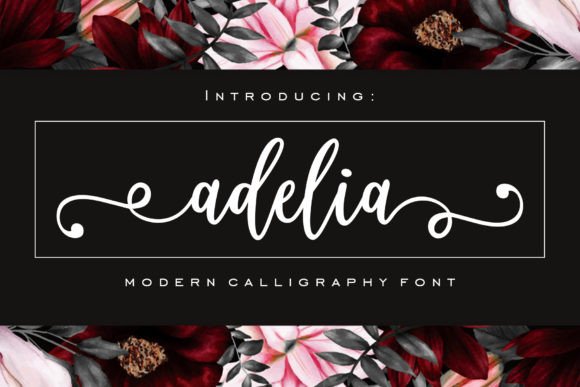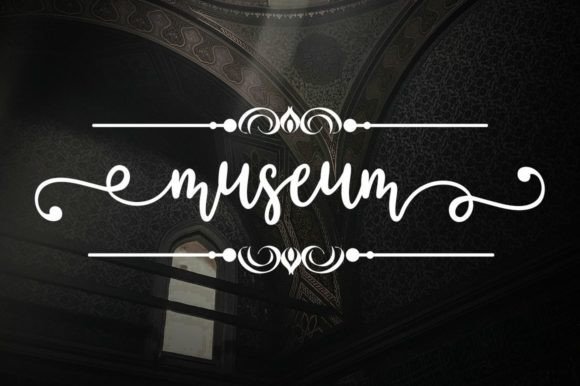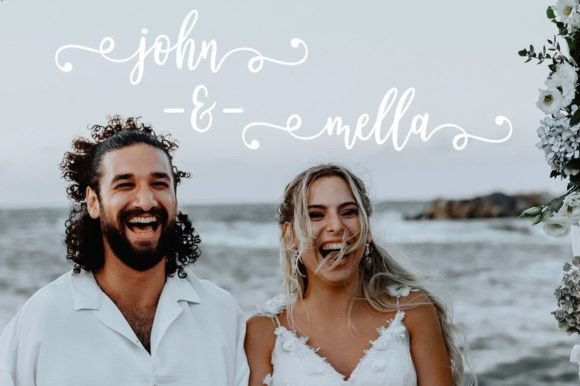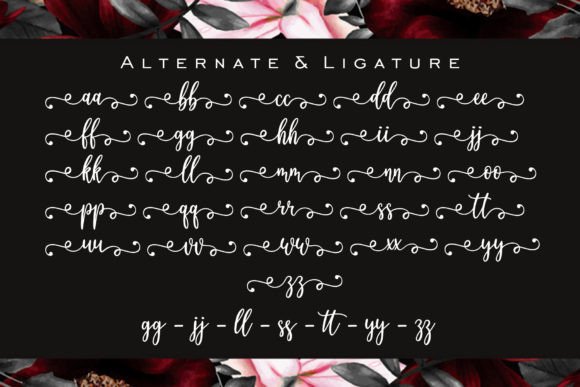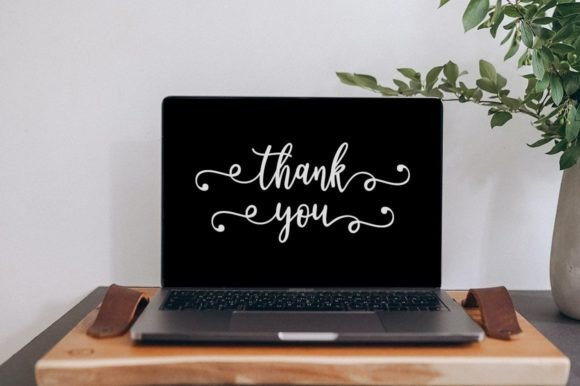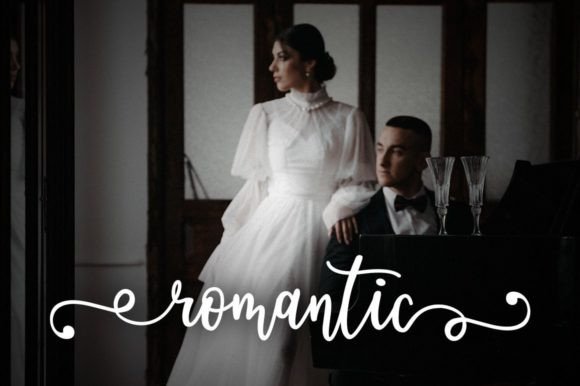
Adelia Font
About Adelia Font
Presenting Adelia, a stunning and luxurious calligraphy font that seamlessly blends modern aesthetics with timeless classic art. Its graceful curves and intricate details make it a perfect choice for a wide range of projects, adding a touch of elegance to your creative endeavors.
Adelia stands out as more than just a font—it’s a visual masterpiece that enhances the beauty of any project it graces. Whether you’re working on invitations, branding, signage, or any design that demands a touch of sophistication, Adelia is ready to elevate your work to new heights.
The mix of modern and classic elements in Adelia ensures that it’s a versatile font that adapts effortlessly to various contexts. Whether you’re aiming for a contemporary look or a more timeless and traditional feel, Adelia strikes the perfect balance, making it a valuable asset for designers with diverse preferences.
But don’t just take our word for it—try Adelia for yourself and witness the magic it brings to your projects. Its beautiful flourishes and intricate details are designed to captivate, making every word a work of art. By incorporating Adelia into your designs, you’re not just using a font; you’re making a statement about style and sophistication.
To enhance your creative experience, Adelia is PUA encoded. This means you have easy access to an extensive array of glyphs and swashes, providing you with the flexibility to customize and embellish your designs effortlessly. Unlock the full potential of Adelia and explore the myriad possibilities it offers.
In conclusion, Adelia is an embodiment of beauty and luxury in the world of calligraphy fonts. It’s a choice that transcends the ordinary, making your projects truly exceptional. Try Adelia today and let its enchanting curves and details speak volumes in your designs. Elevate your creative journey with a font that is not just a typeface but a testament to the artistry that fonts can bring to your work.